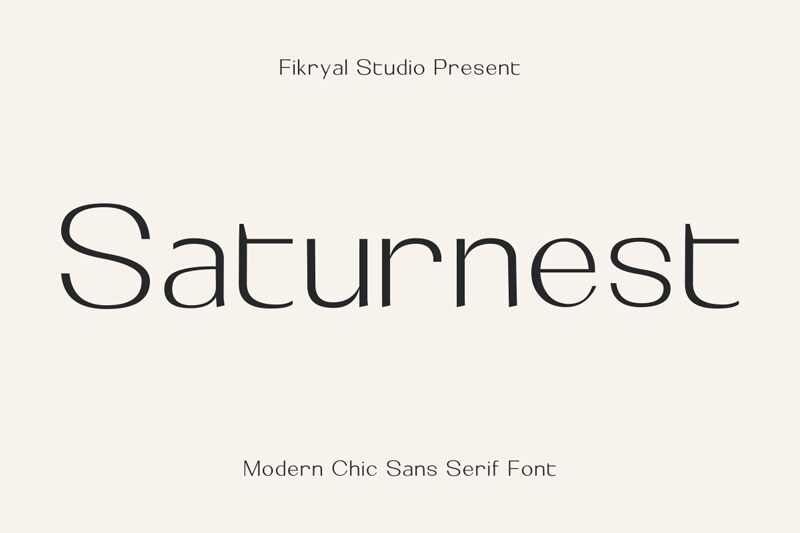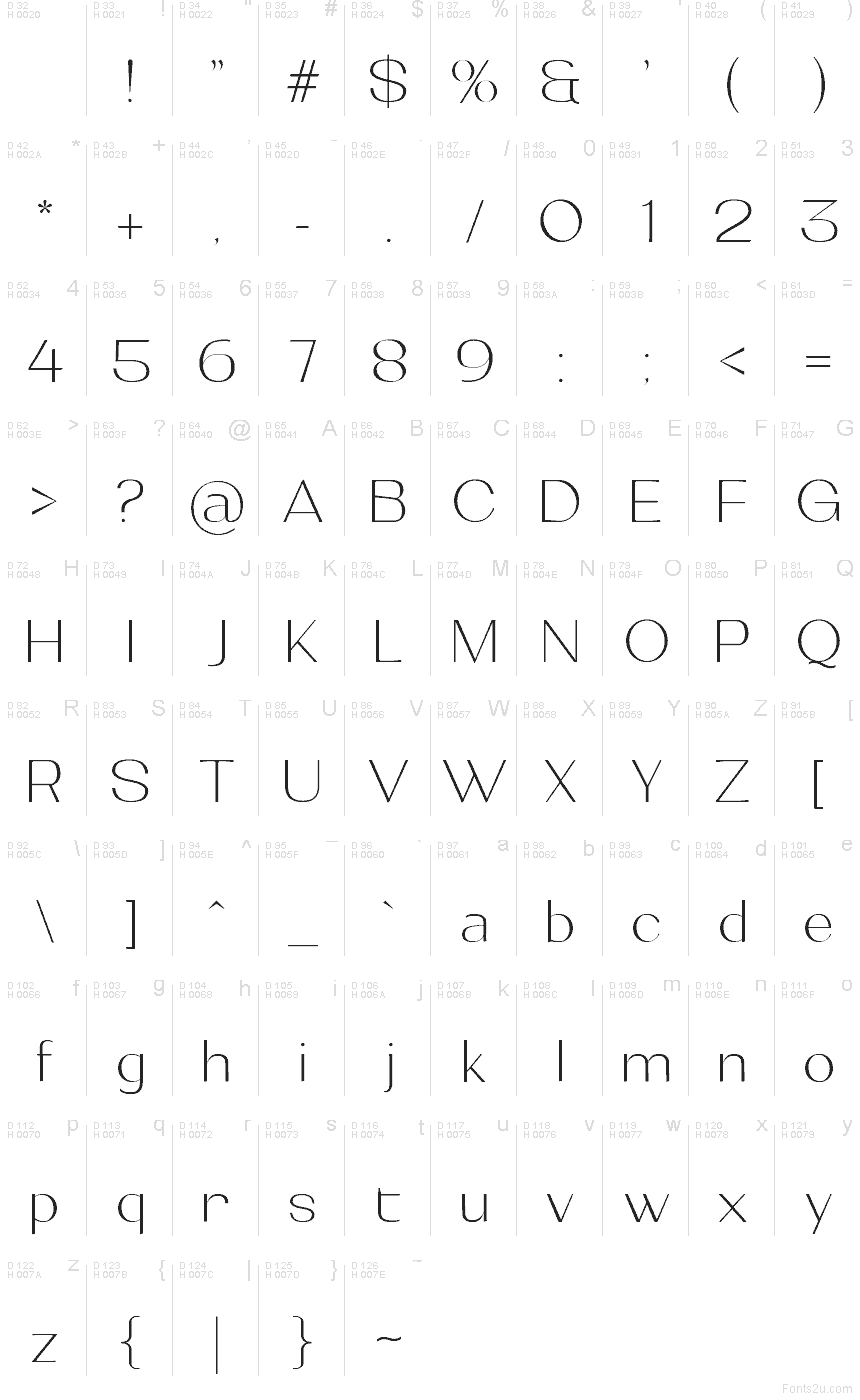
Saturnest Light
Saturnest Light font by Muhamad Fikry Nuralif of Fikryal Studio is a free sans serif font, and this Saturnest typeface lives in the realm of hairline strokes and calm, airy spacing. It feels like ink pulled to a whisper—sleek, slightly quirky curves with long, delicate horizontals that give words a refined, fashion-forward glide.
Using Saturnest Light works beautifully for magazine headers, skincare and fragrance packaging, boutique logos, lookbooks, minimalist websites, event invites, and short social quotes where elegance matters. Keep it a touch larger than usual so the thin lines stay crisp, and pair it with a sturdy grotesk or a warm text serif for body copy—this free font shines when it gets room to breathe.